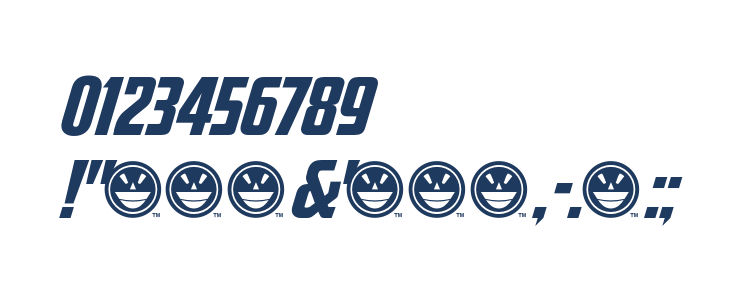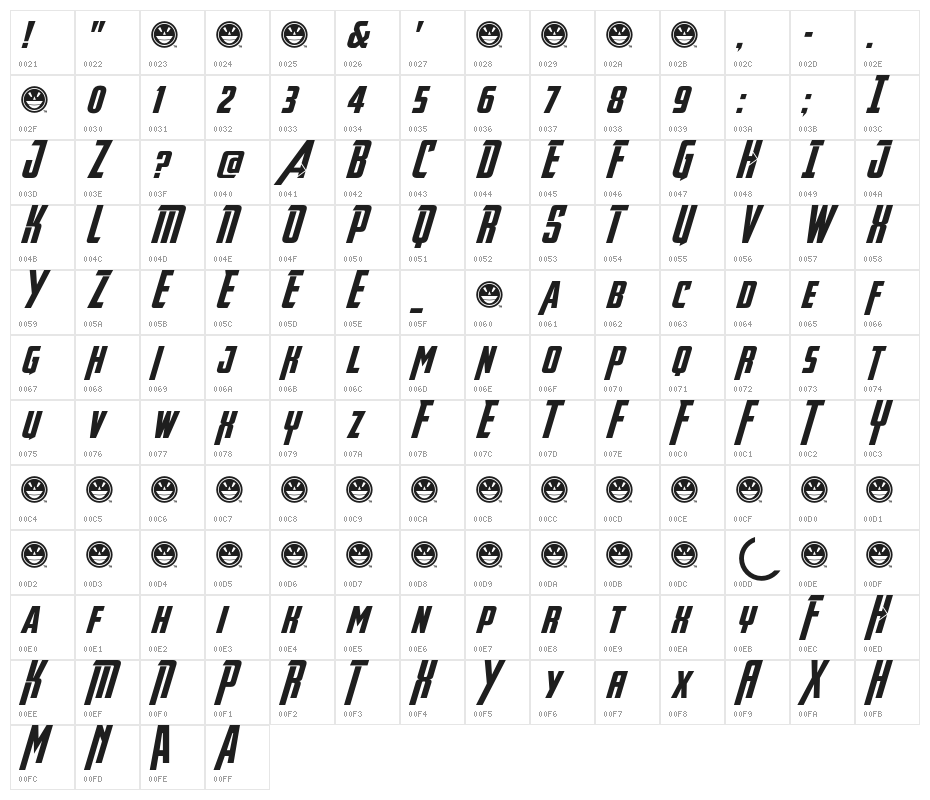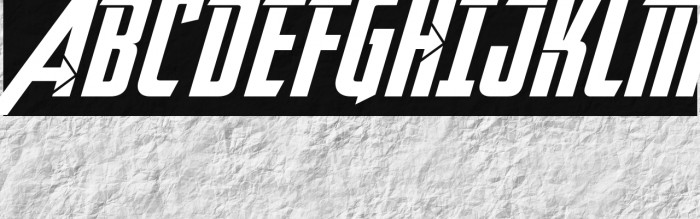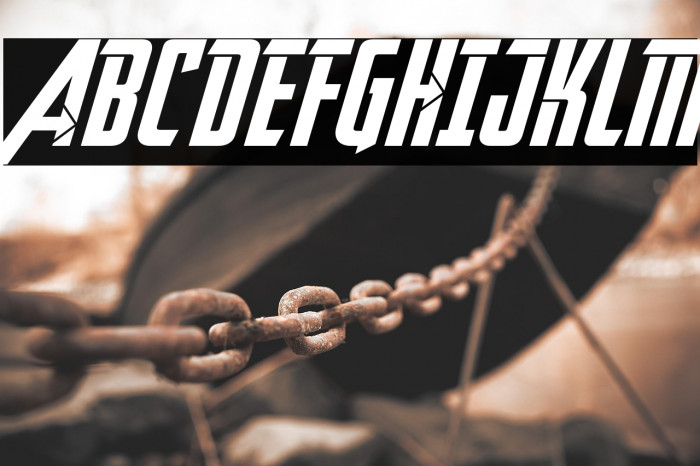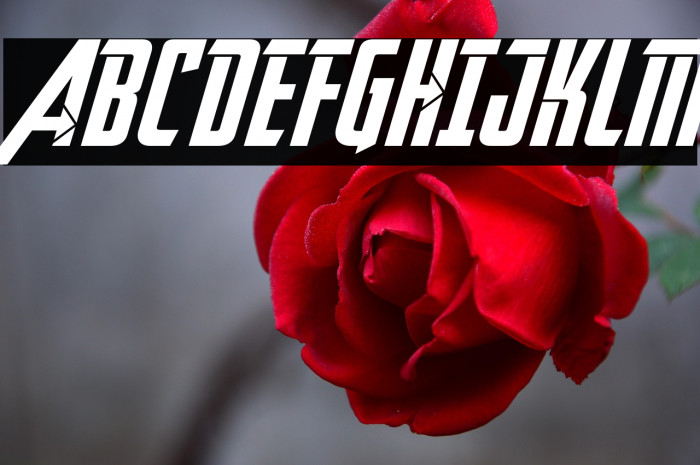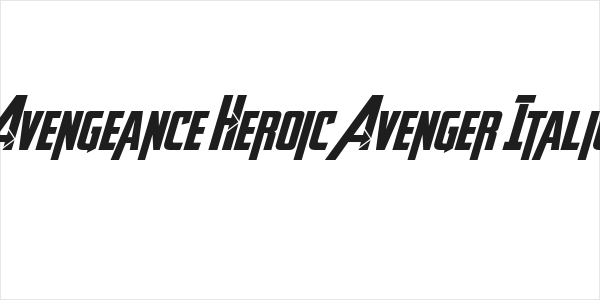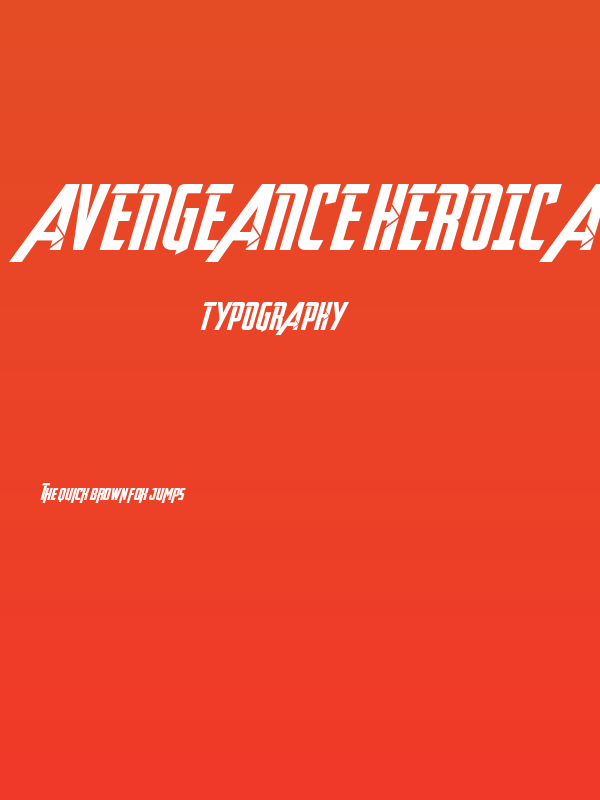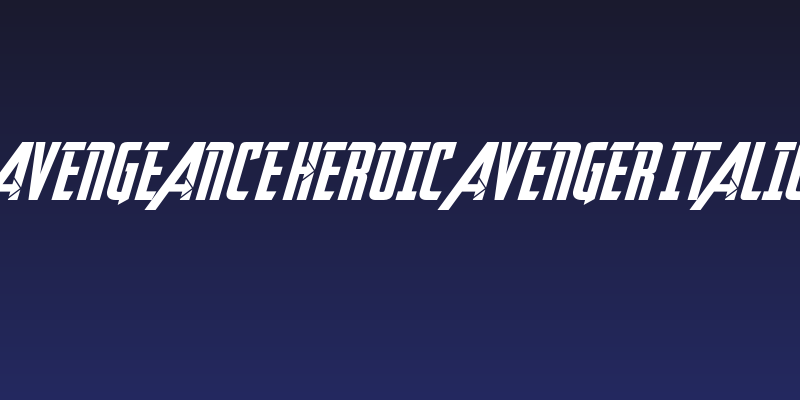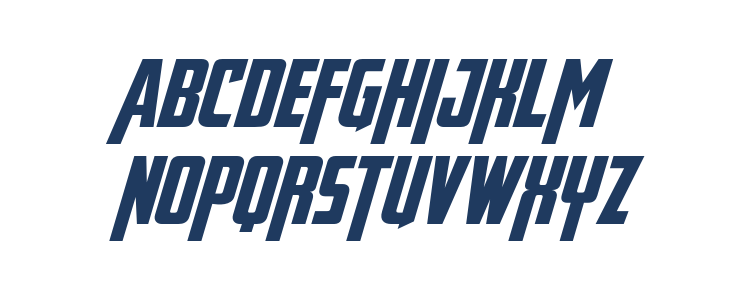
Avengeance Heroic Avenger Italic Font
Avengeance Heroic Avenger Italic Description
This font features a bold, dynamic style with a strong sense of movement and energy. The characters are italicized, giving them a forward-leaning stance that suggests speed and action. The strokes are thick and angular, with sharp edges and a modern, futuristic appearance. The uppercase letters are particularly striking, with unique cutouts and slashes that add to the font's aggressive and heroic feel. The numbers and special characters maintain this bold aesthetic, ensuring consistency across all glyphs. This font is designed to capture attention and convey a sense of power and excitement.
| Proposed Projects | Ideal for superhero-themed designs, movie posters, video game titles, and branding that requires a strong, impactful presence. |